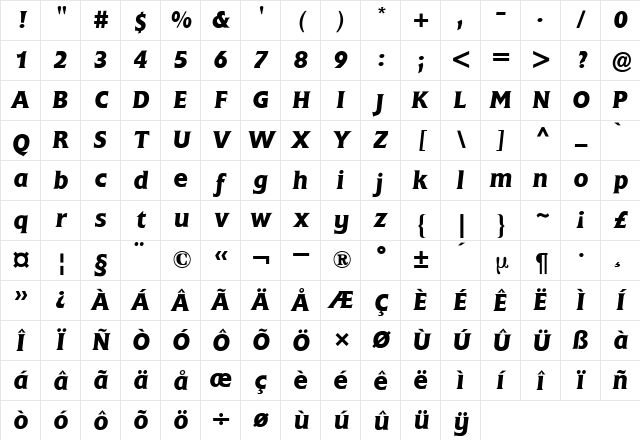
Flange BQ Italic
Design Context for Flange BQ
Flange BQ is a composed and adaptable typeface that performs quietly and consistently across a wide range of design contexts. The slanted form adds forward momentum and visual energy.
Pro Tip: Use Flange BQ for emphasis, pull quotes, and subheadings where its slanted energy can add rhythm to the layout.